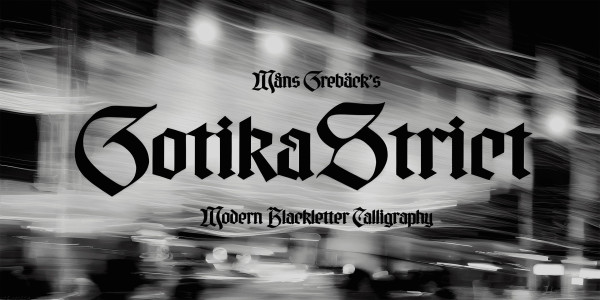
Gotika Strict Font
Gotika Strict Font, Inspired by ancient manuscripts and the unique geometry found in medieval architecture, Gotika Strict is merging old-world charm with contemporary sensibilities. Suitable for any design needs : logo, branding, modern advertising design, logos, poster quote, book / cover Title, editorial design, website / blog, card, t-shirts,…